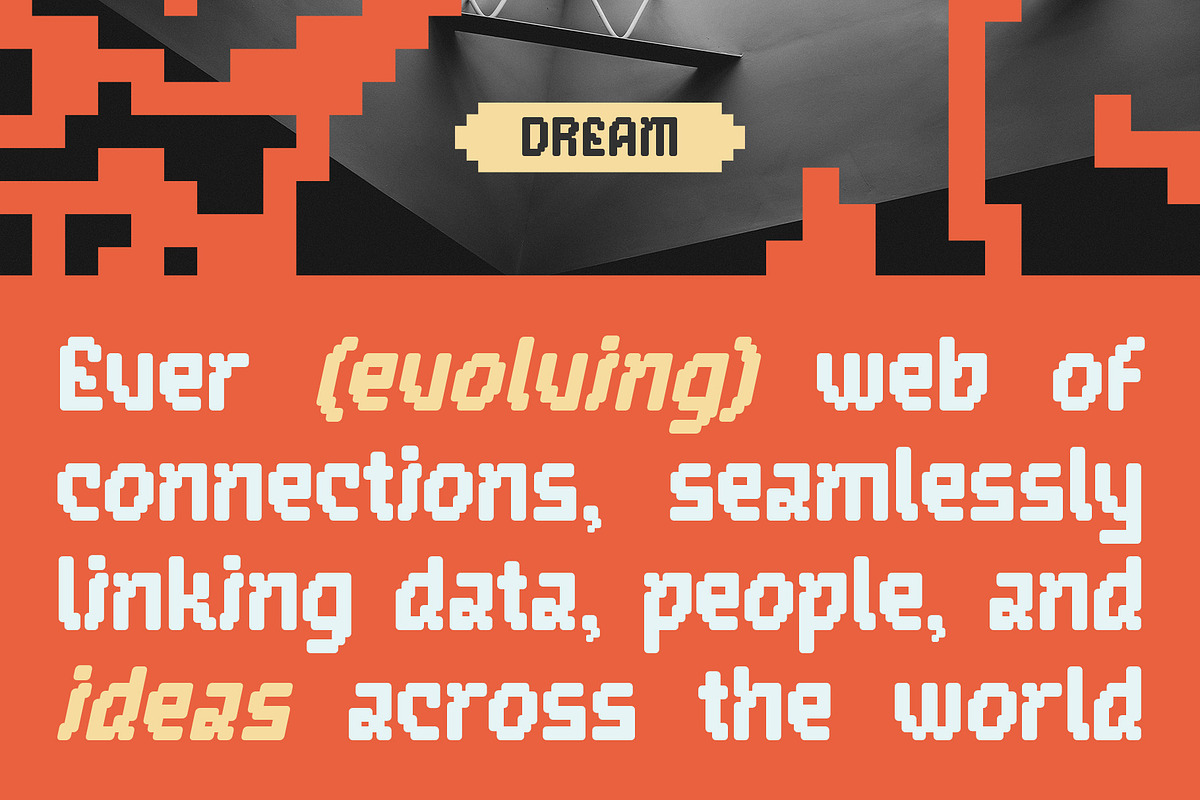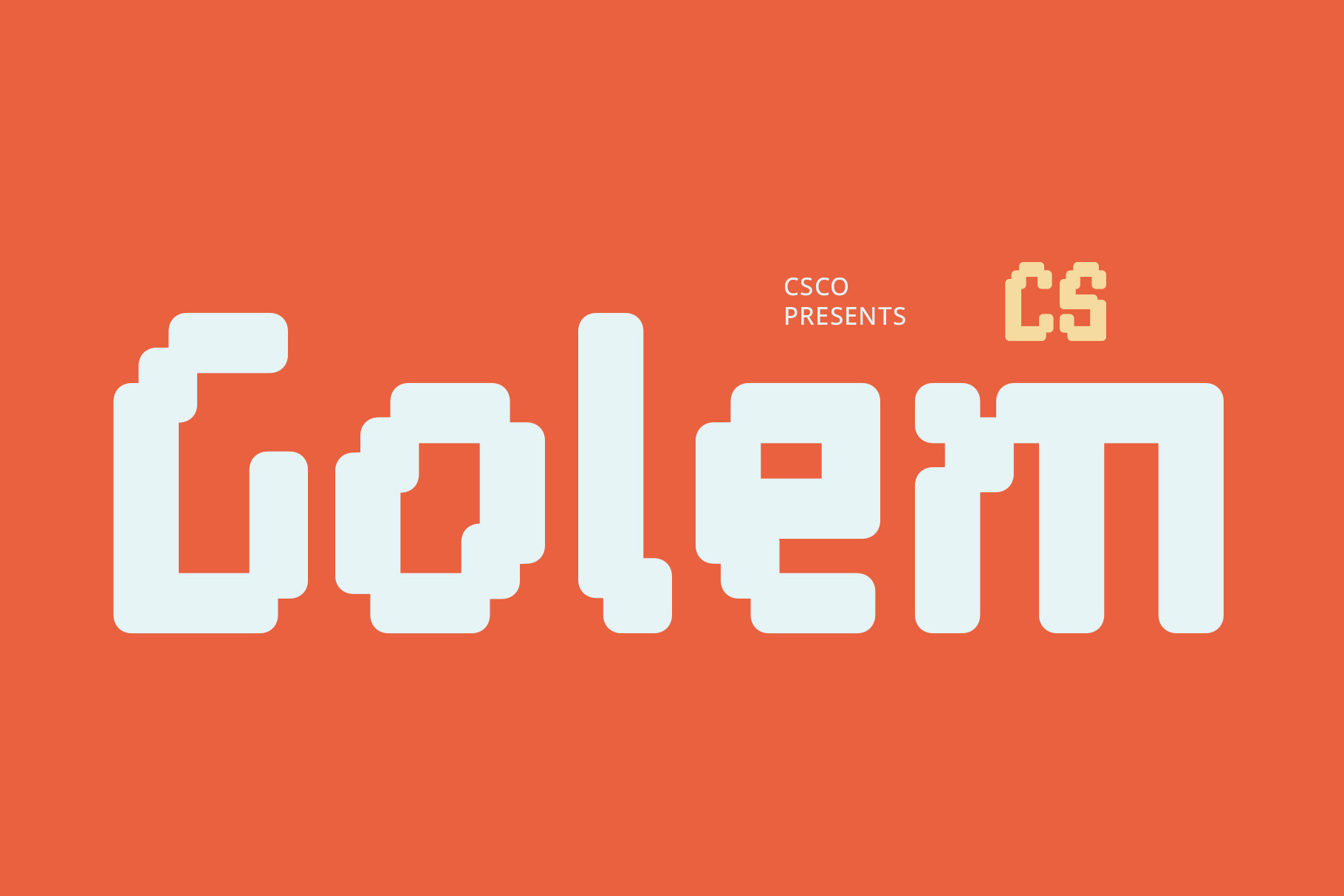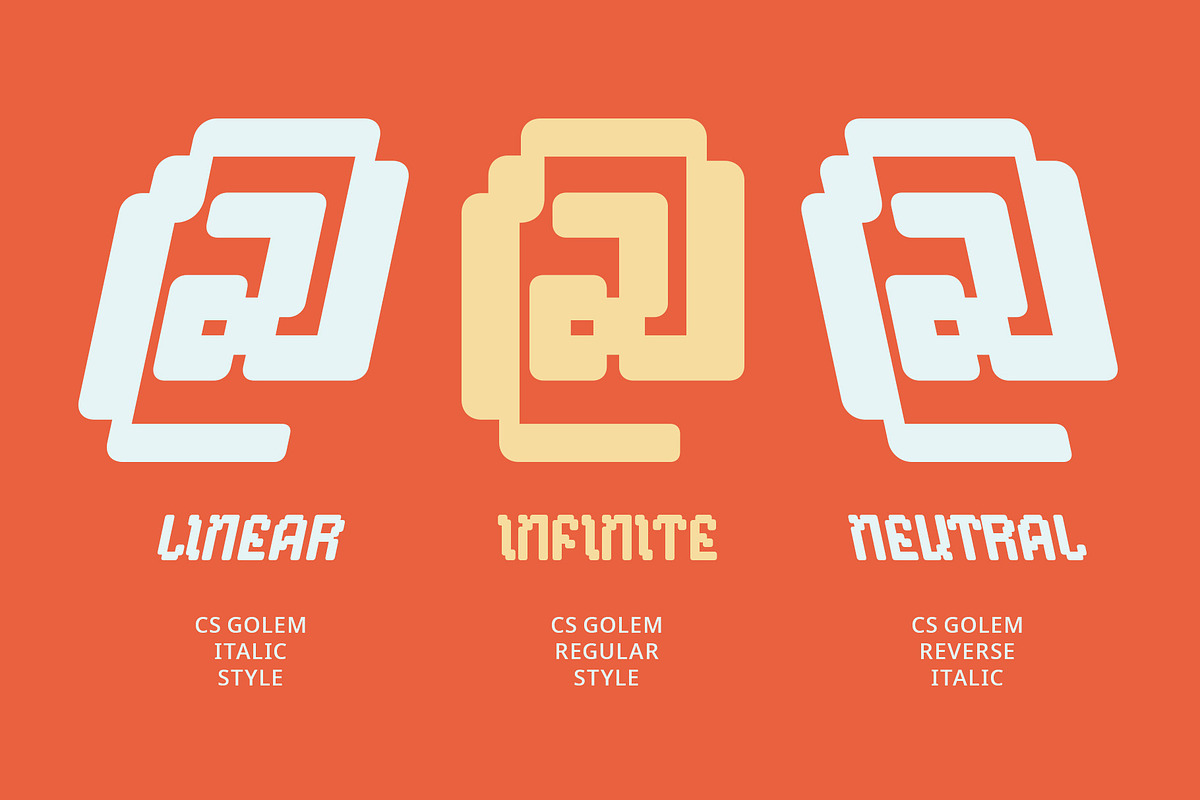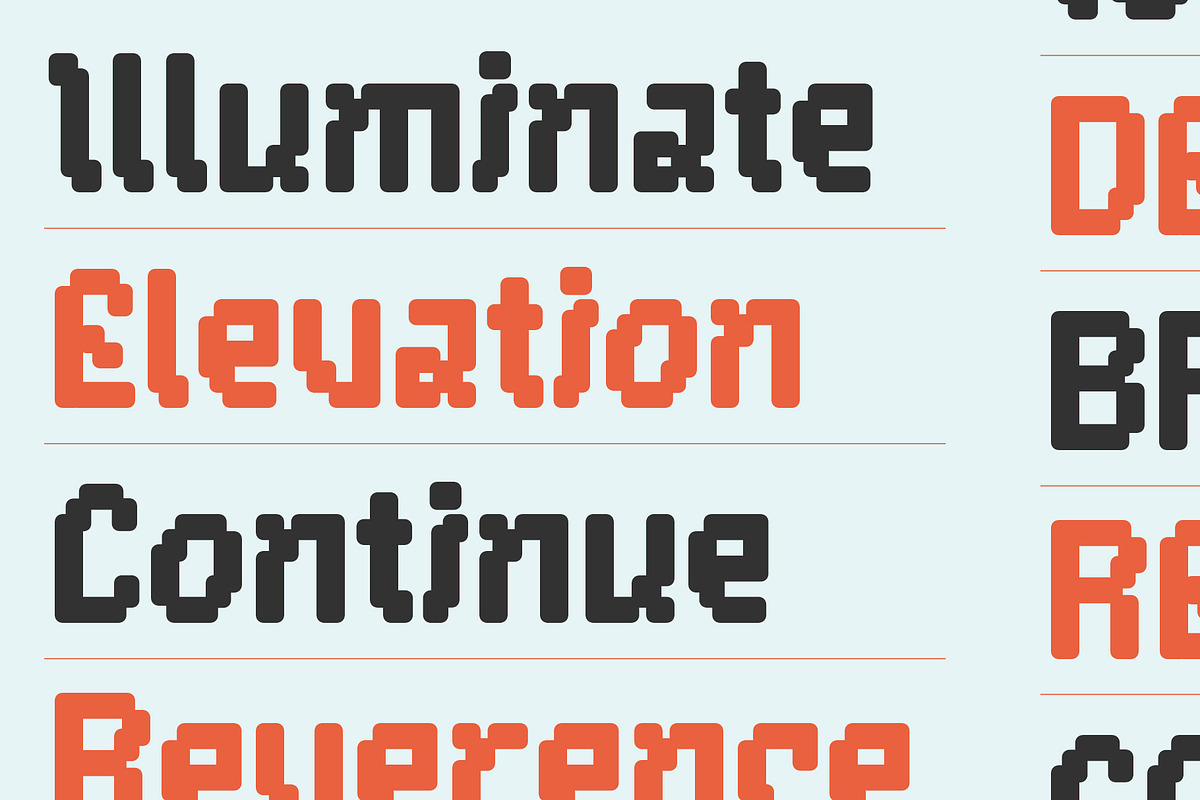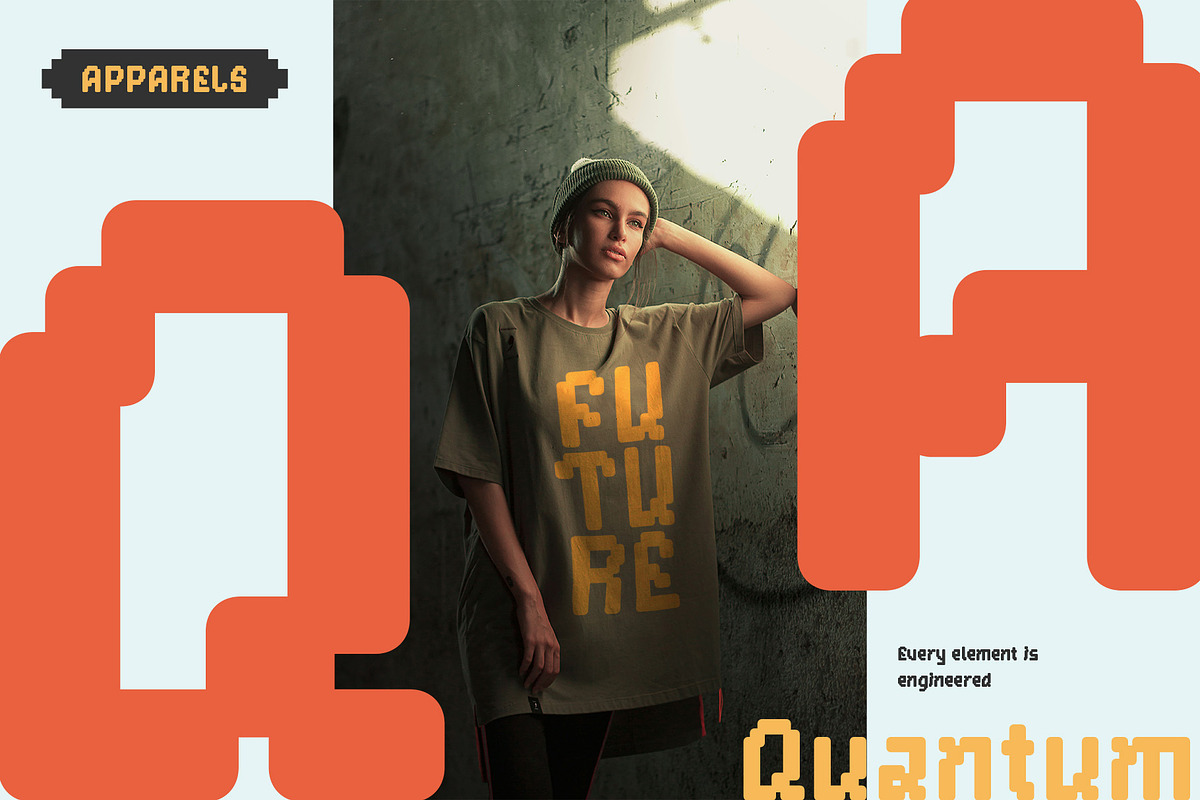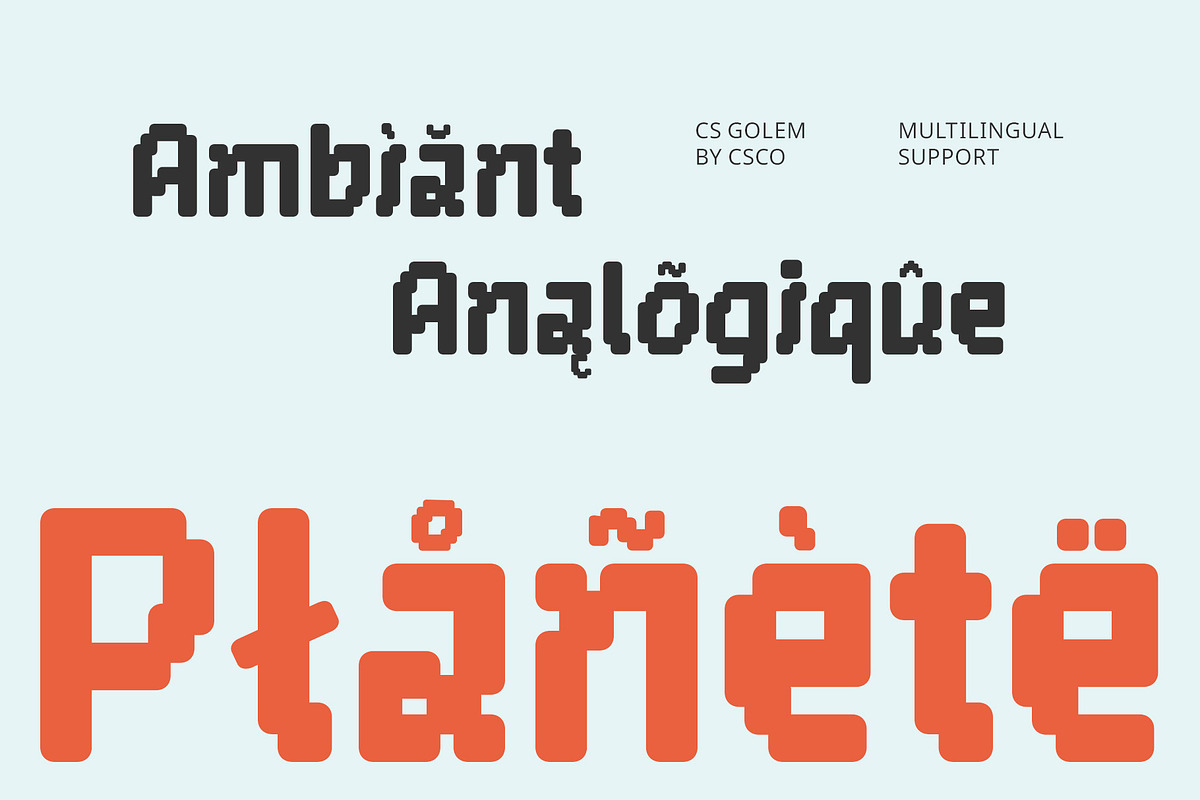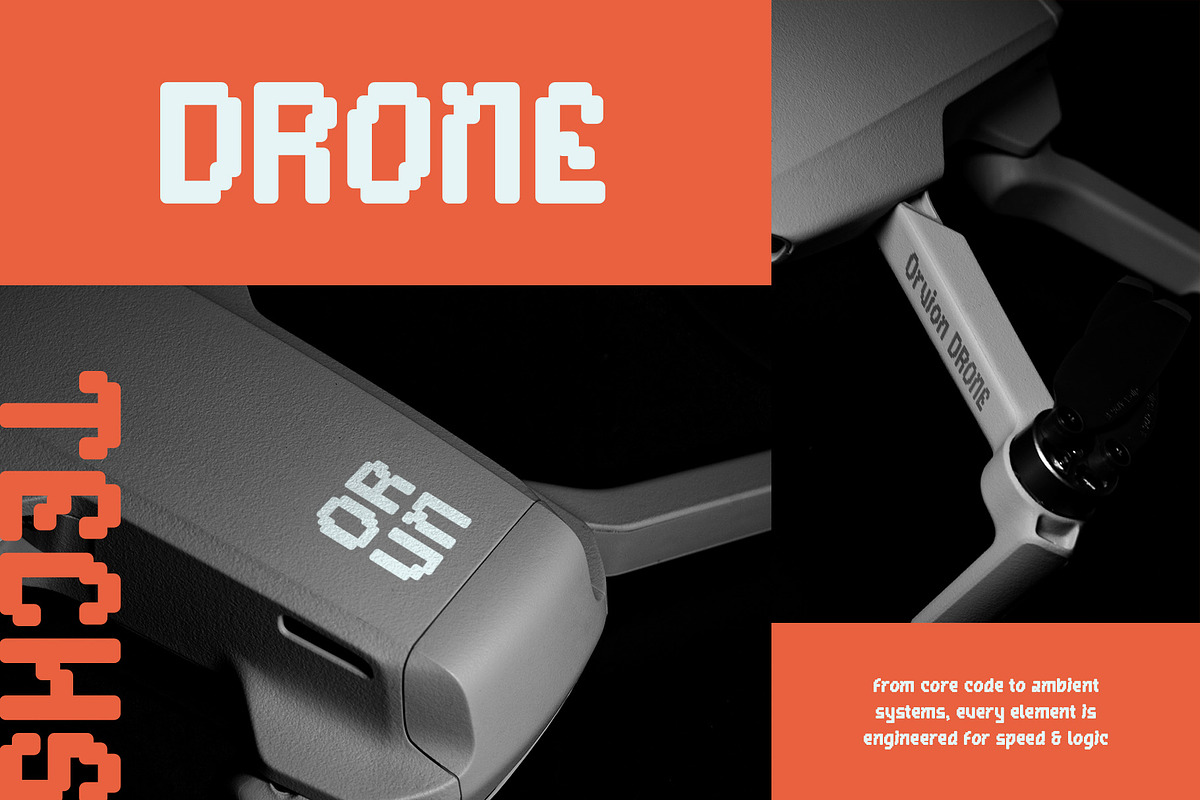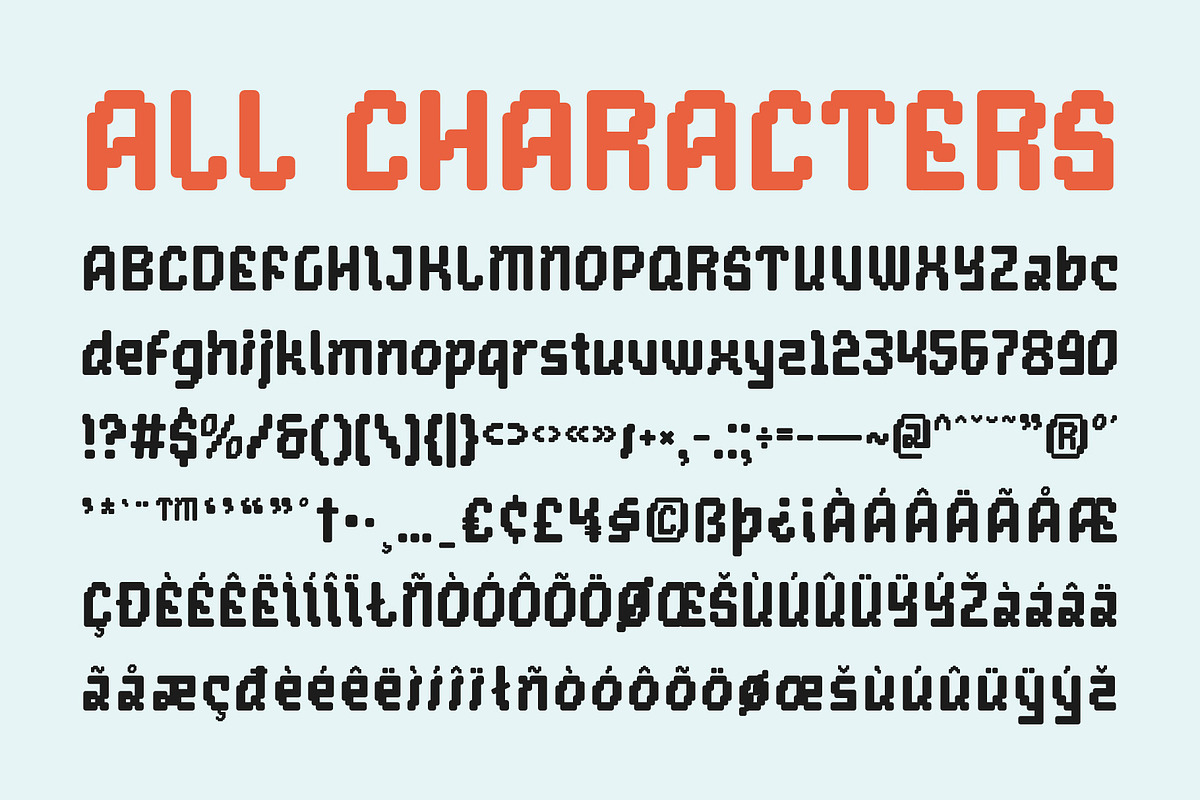
CS Golem – Pixel Font
CS Golem – Pixel Font with a Bold Retro Edge
Classic Pixel Style with Digital Nostalgia CS Golem is a bold pixel display font rooted in retro digital aesthetics, drawing inspiration from classic 8-bit and 16-bit video game typography. Its square, modular letterforms evoke the charm of vintage arcade games and early computer systems, instantly transporting viewers to the pixelated past of the digital world.
Strong Structure with Playful Energy With a distinctly geometric and monospaced design, CS Golem delivers a structured yet expressive feel. Each character is crafted with a bold rhythm and visual consistency, creating a sense of order that pairs perfectly with playful, tech-driven content. It’s a font that balances nostalgia with strength.
Retro-Futuristic Appeal The nostalgic vibe of CS Golem is elevated with a modern edge, making it ideal for designs that blend past and future. Its pixel-perfect form is perfect for gaming graphics, synthwave posters, or branding that seeks to tap into retro-futuristic aesthetics and evoke emotional familiarity.
Perfect for Digital and Creative Projects Whether you’re designing for a gaming brand, music visual, tech event, or a nostalgic throwback project, CS Golem fits the bill. It adds a unique character that’s bold, fun, and unmistakably digital—making it a powerful choice for standout visual identities that want to echo the roots of digital culture.
- CS Golem Regular
- CS Golem Italic
- CS Golem Reverse Italic